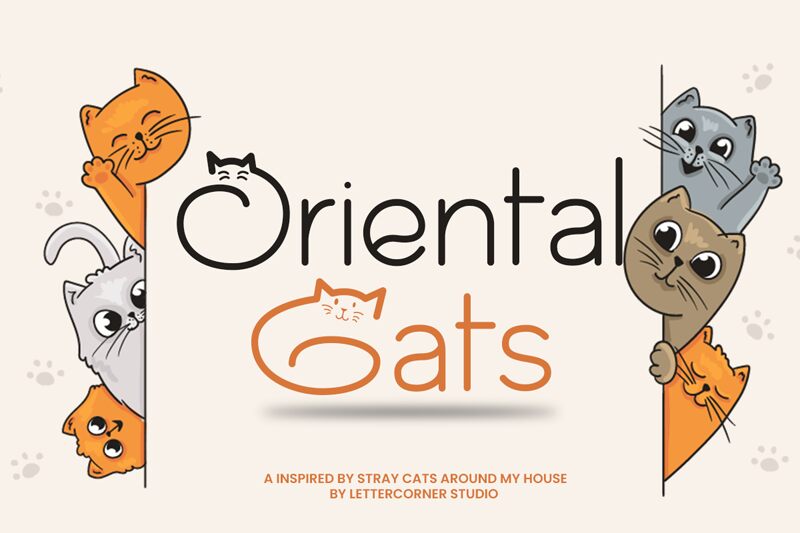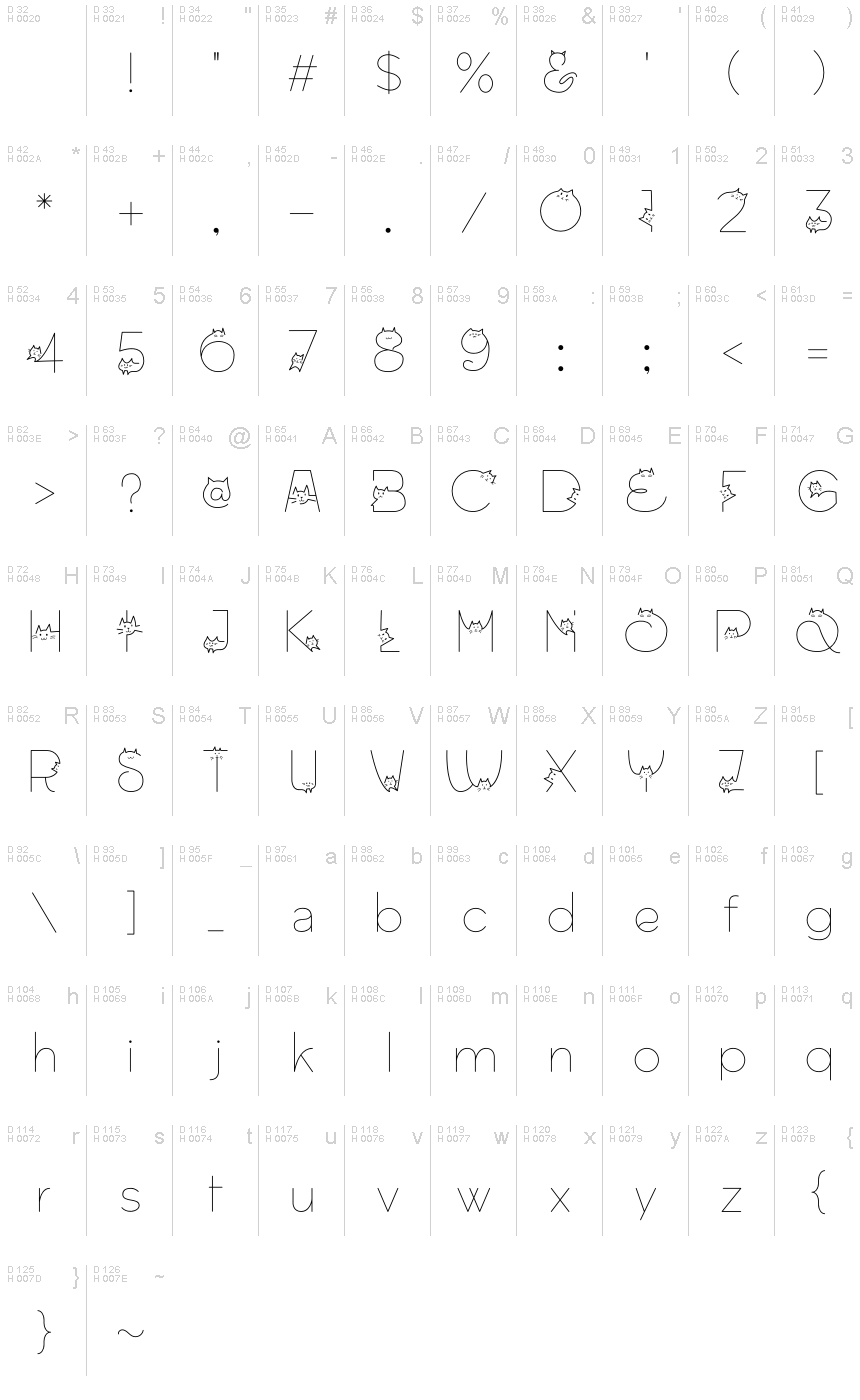
Oriental Cats Light
Oriental Cats Light font is a typeface that has been designed by Mocha Frappuccino. This light decorative display font has a whimsical mood and cat motifs. Its clean lines and sans-serif appearance give it a playful and modern touch. Oriental Cats has a low contrast between thick and thin strokes, so it appears well-balanced, open, friendly and easy to read.